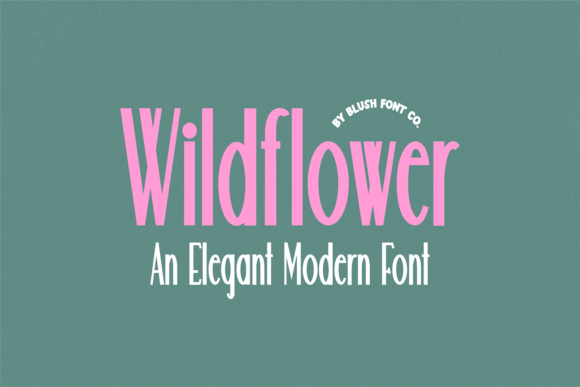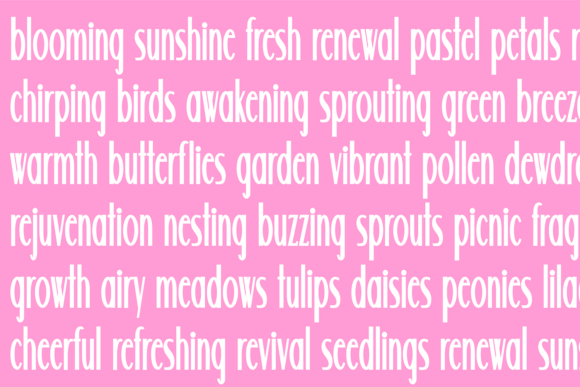
Wildflower Font
Wildflower is a stylish and sophisticated modern font with a sleek, high-contrast design. Its elegant curves and contemporary feel make it a perfect choice for fashion branding, editorial layouts, social media, and upscale packaging. Wildflower seamlessly blends minimalism with a touch of playfulness.